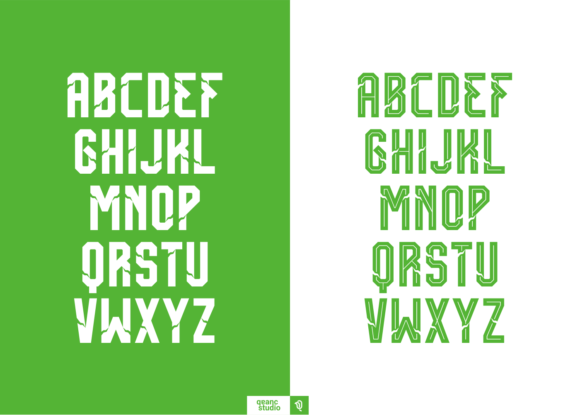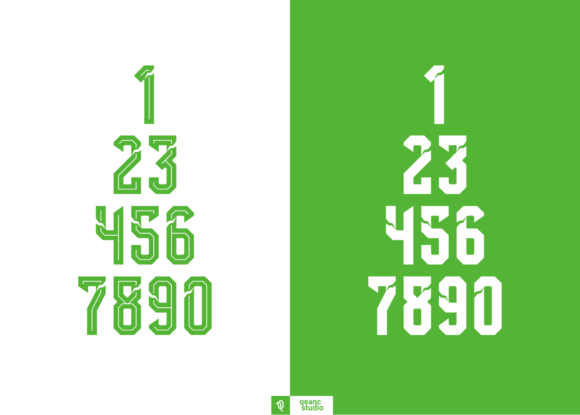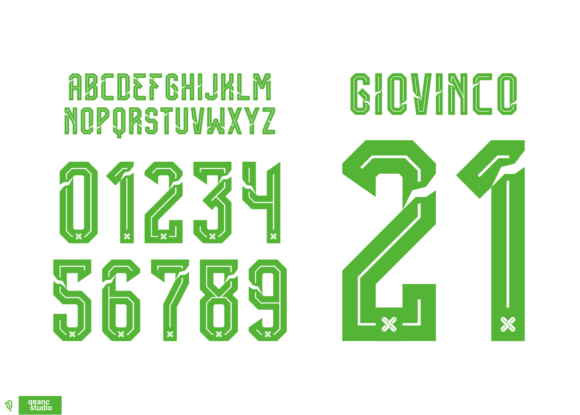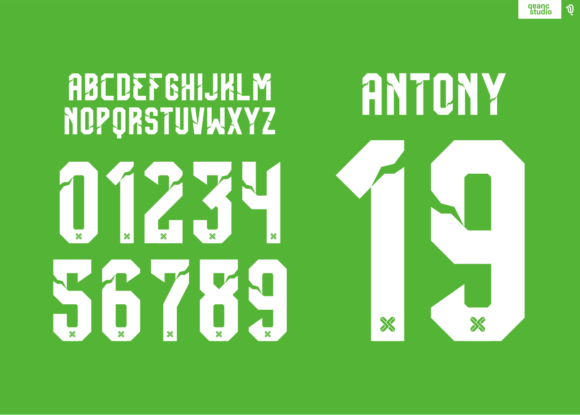
Introduction to Panthera Font
Have you ever found yourself in a creative slump, staring at a blank canvas, desperately seeking that one element to bring your project to life? For designers, it’s a familiar feeling – the thrill of the hunt for the perfect design resource. And then, it happens: you stumble upon that one game-changing font that elevates your entire creative project. For me, that moment came when I discovered the Panthera Font.
This sleek, modern display font is a masterclass in design. Inspired by the high-octane world of football, Panthera Font is the perfect addition to any sports or racing-themed project. With its clean lines and bold typography, it’s a game-changer for designers looking to add a touch of sophistication to their designs.
Key Features of Panthera Font
- High-quality design resource with a unique and creative touch, ideal for various projects.
- Includes a wide range of characters, including uppercase and lowercase letters, numbers, and symbols.
- Supports various languages, making it a versatile design resource for international projects.
- Perfect for creative projects that require a sophisticated and elegant font style.
Honest Review: Panthera Font
As a designer, I’m always on the lookout for high-quality fonts that can elevate my creative projects. Recently, I had the chance to try out the Panthera Font, and I’m excited to share my thoughts with you.
- ✨ Unique and stylish design that’s perfect for modern projects
- ⚠️ Limited character set, which may not be suitable for large-scale projects
Overall, I’m impressed with the Panthera Font. It’s a great design resource that can add a touch of sophistication to your projects. While it may have some limitations, I think it’s definitely worth checking out for designers looking for a high-quality, free font.
The Panthera Font is a high-quality design resource perfect for creative projects. It offers a unique and sophisticated style, making it ideal for various applications.
Tips for Getting the Most Out of Panthera Font
Use the Panthera Font on a transparent background to create a sleek and modern design. Experiment with different font sizes and colors to achieve the desired effect.
The Panthera Font is perfect for various design projects, including logos, business cards, and brochures. Its sophisticated style makes it ideal for creative and professional applications.
Alternatives to Panthera Font
The Great Vibes Font is a high-quality, handwritten font perfect for creative projects that require a touch of elegance. It’s ideal for designing wedding invitations, quotes, and other decorative elements. With its unique, flowing style, Great Vibes Font offers a more refined and sophisticated look compared to Panthera Font, which has a more edgy and modern feel.
Pacifico Font is a beautiful, cursive font that’s great for design projects that need a touch of sophistication. It’s perfect for creating logos, branding materials, and other design elements that require a high-end look. Compared to Panthera Font, Pacifico Font is more elegant and refined, making it suitable for corporate and luxury brands.
Dancing Script Font is a playful, handwritten font that’s perfect for creative projects that require a fun and energetic vibe. It’s ideal for designing social media graphics, posters, and other promotional materials that need to grab attention. Unlike Panthera Font, Dancing Script Font is more whimsical and carefree, making it suitable for younger audiences and brands that want to appear playful.